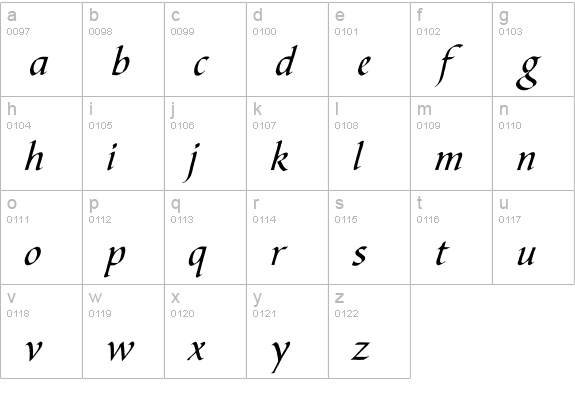
Bible Script Std Font Details
Bible Script Std is a beautiful and elegant font that exudes a sense of grace and sophistication. Its delicate strokes and flowing curves make it perfect for creating stunning designs with a touch of refinement. This timeless font is ideal for projects that require a classic and timeless feel, such as invitations, greeting cards, and wedding stationery. The best part about Bible Script Std is that it is available for free download at FontsMarket.com. You can easily access this exquisite font without any cost, making it a valuable addition to your font collection. Whether you are a professional graphic designer or a hobbyist looking to elevate your projects, Bible Script Std is a must-have font that will bring a touch of elegance to your work. Download it today and let your creativity soar with this exquisite typeface.